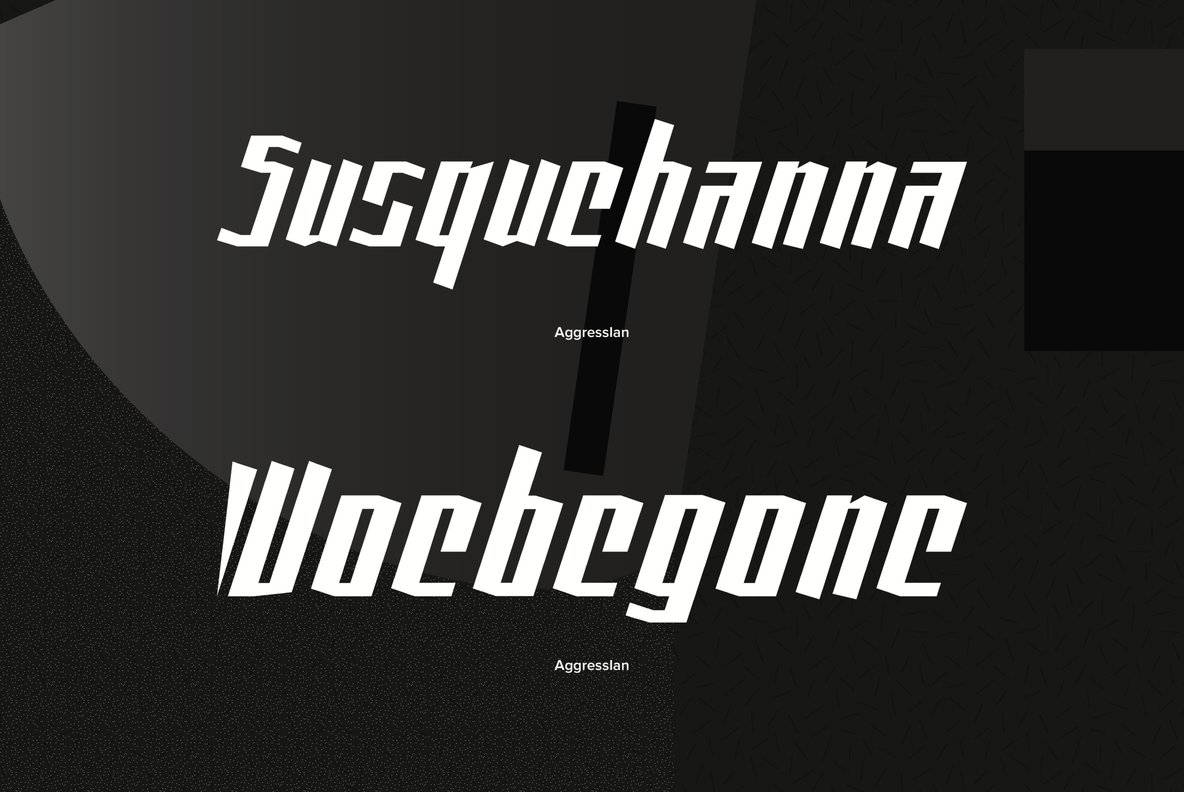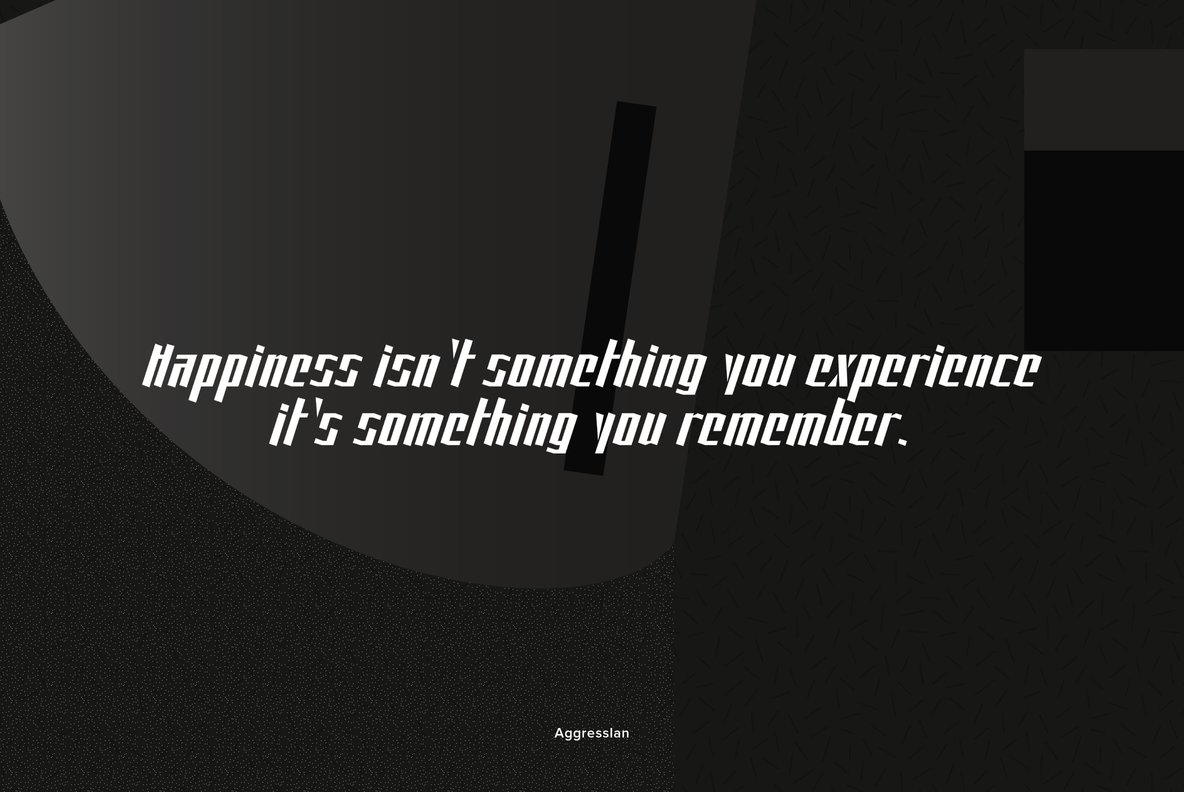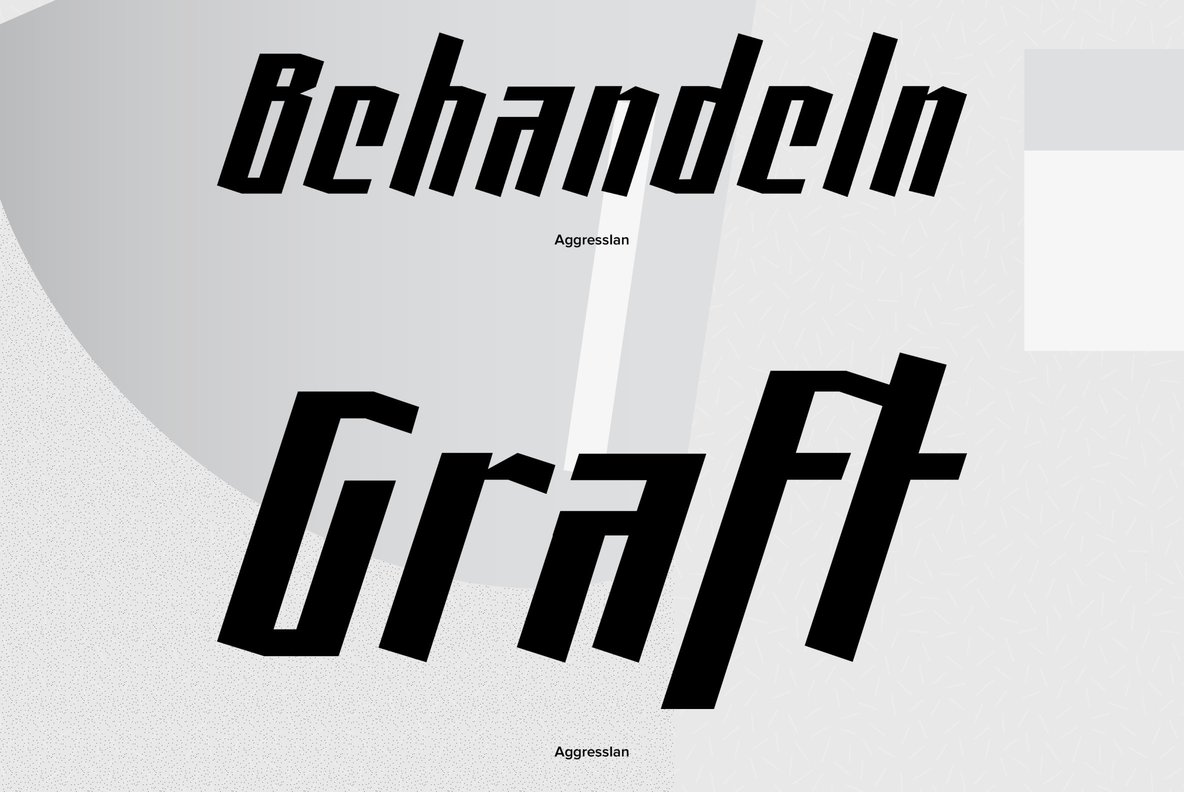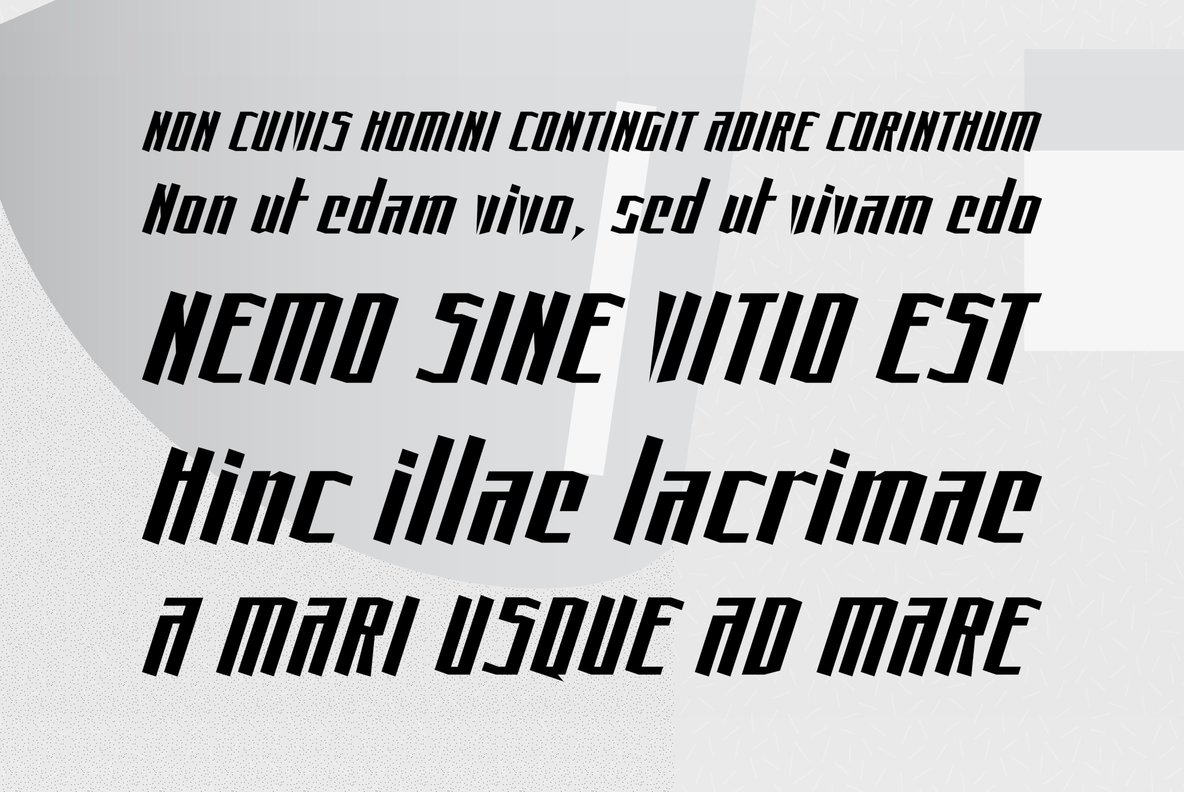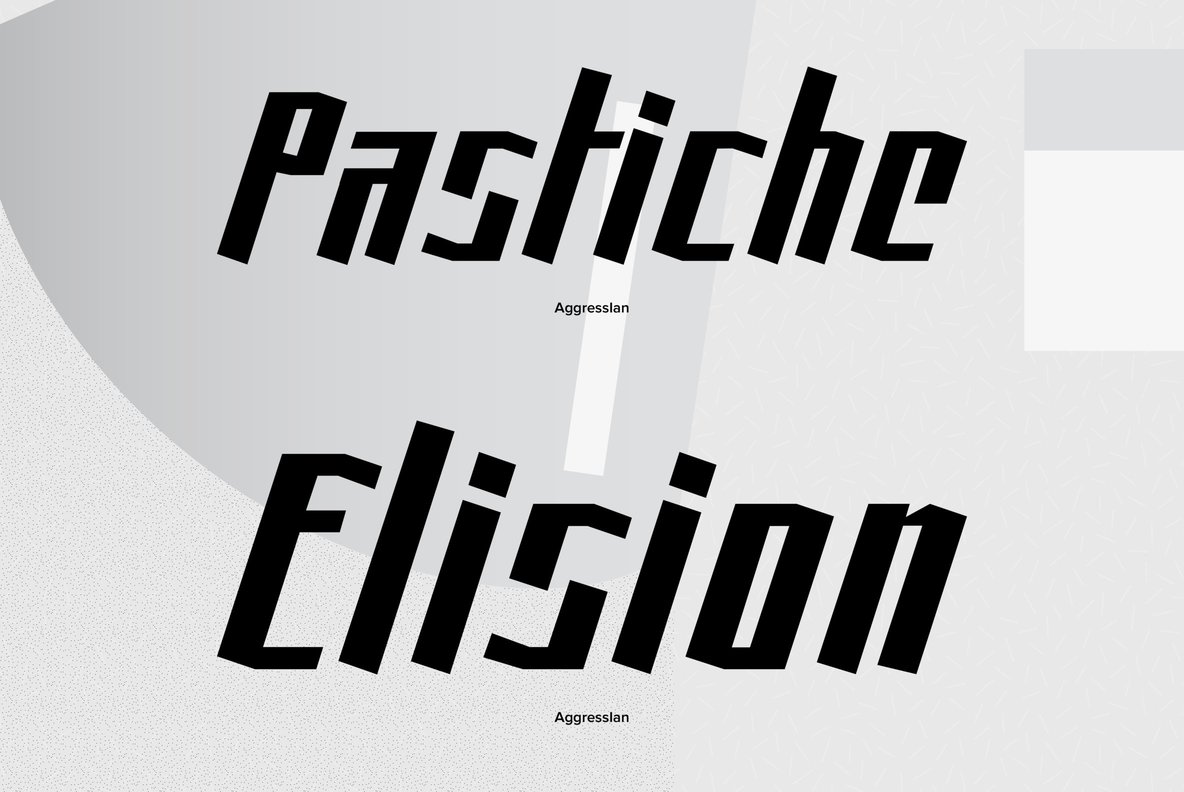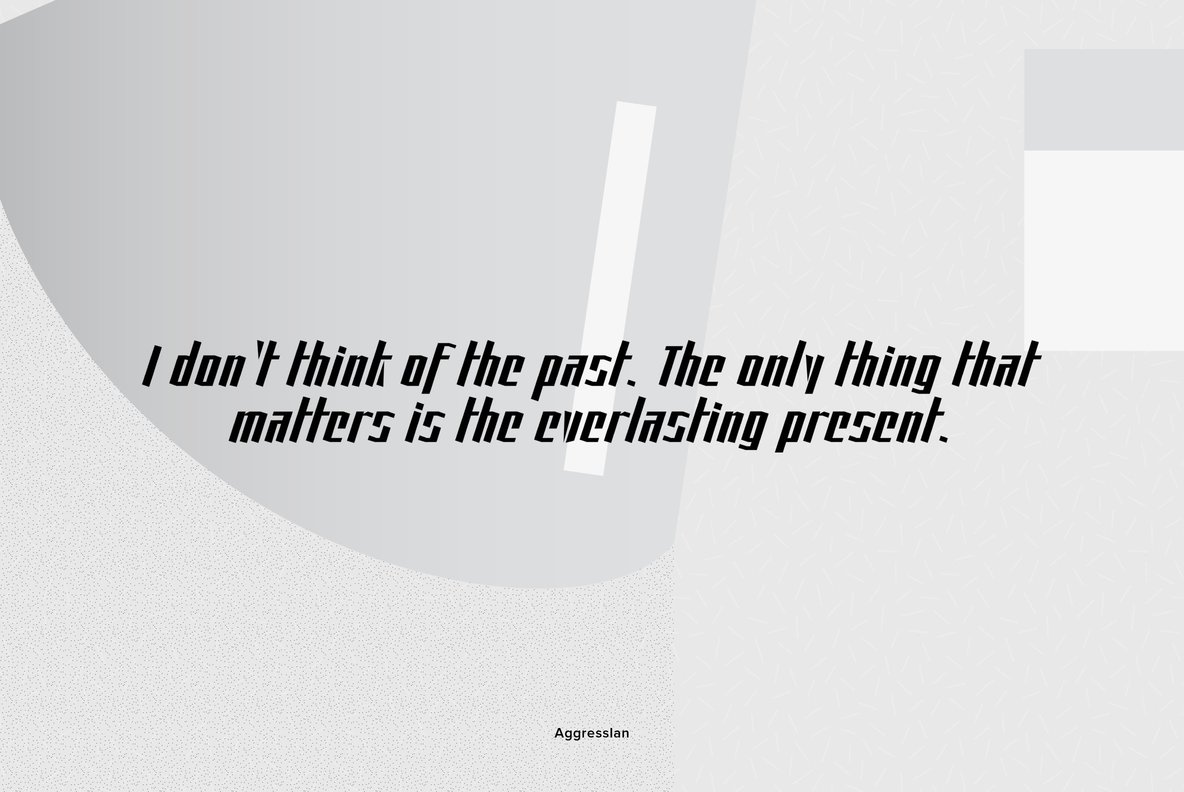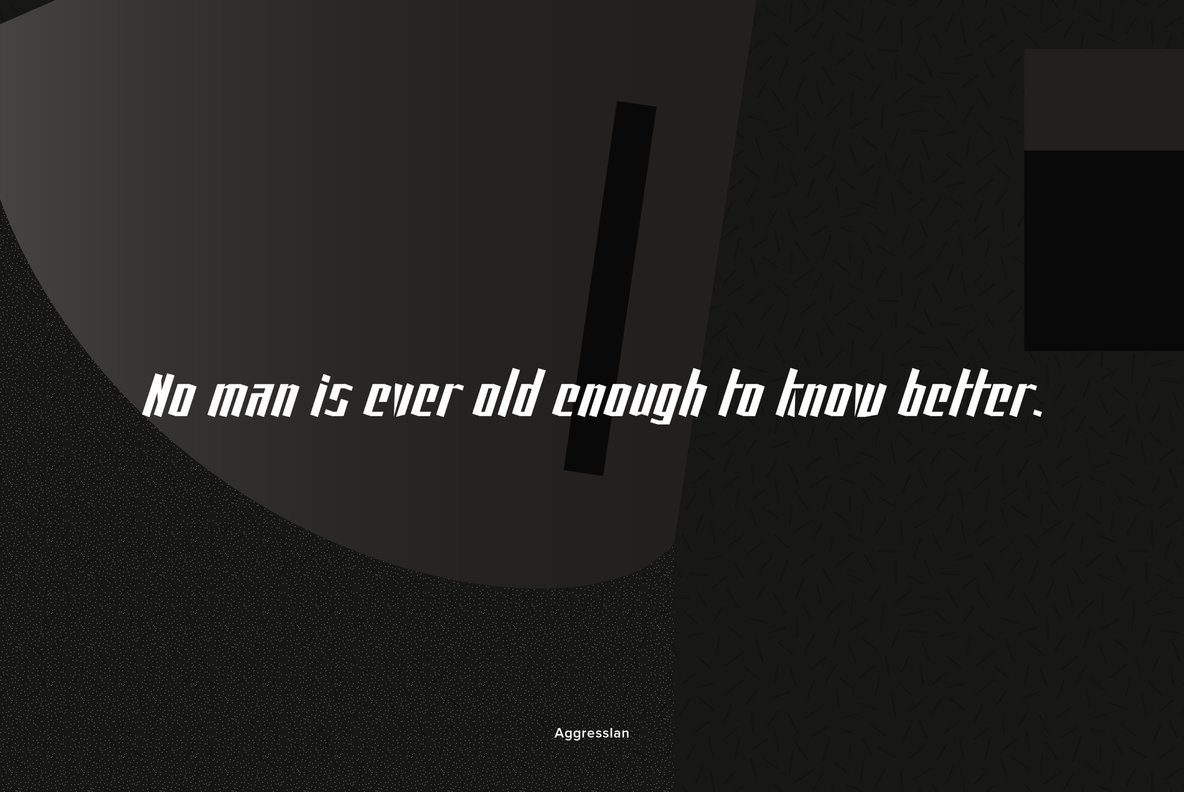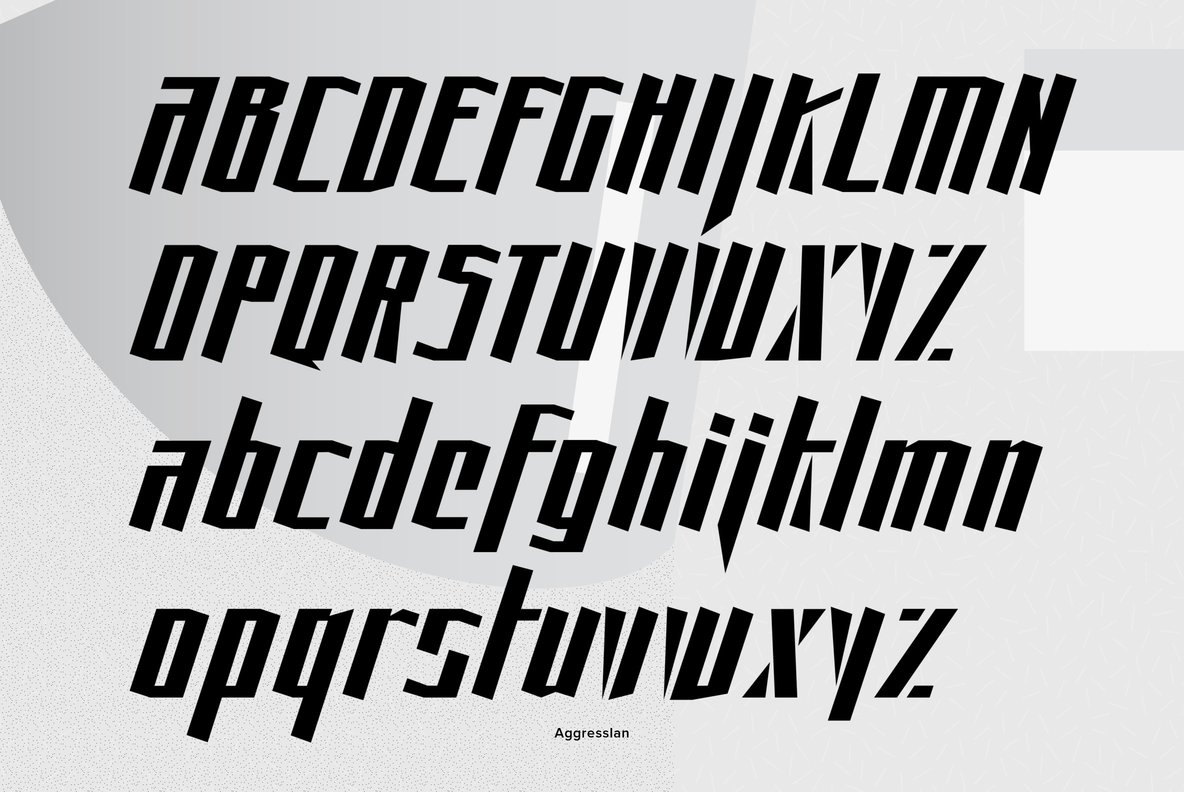
AgressIan Font
AggressIan
AggressIan is the release of the first font I ever drew. It was done by hand with triangle and parallel rule back in the mid-1980s. I originally called it Aggressor, but I never liked it. My local type designer friend, Ian Roberts, really likes this type of drawing and told me I had to release it. So I named it after him. The small caps should work well if you need a bolder version. It has oldstyle and lining figures, plus the small cap figures. I hope you like it.